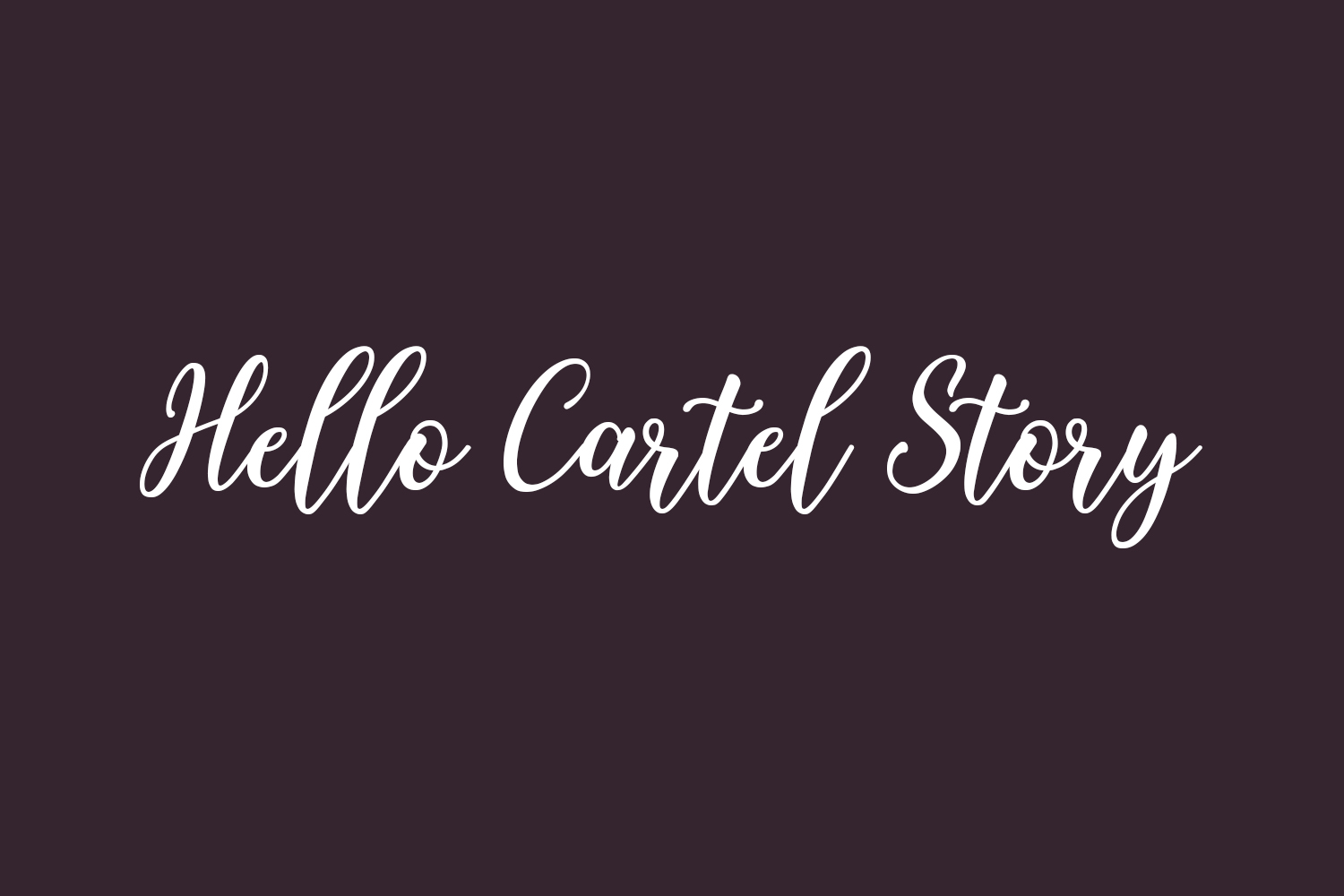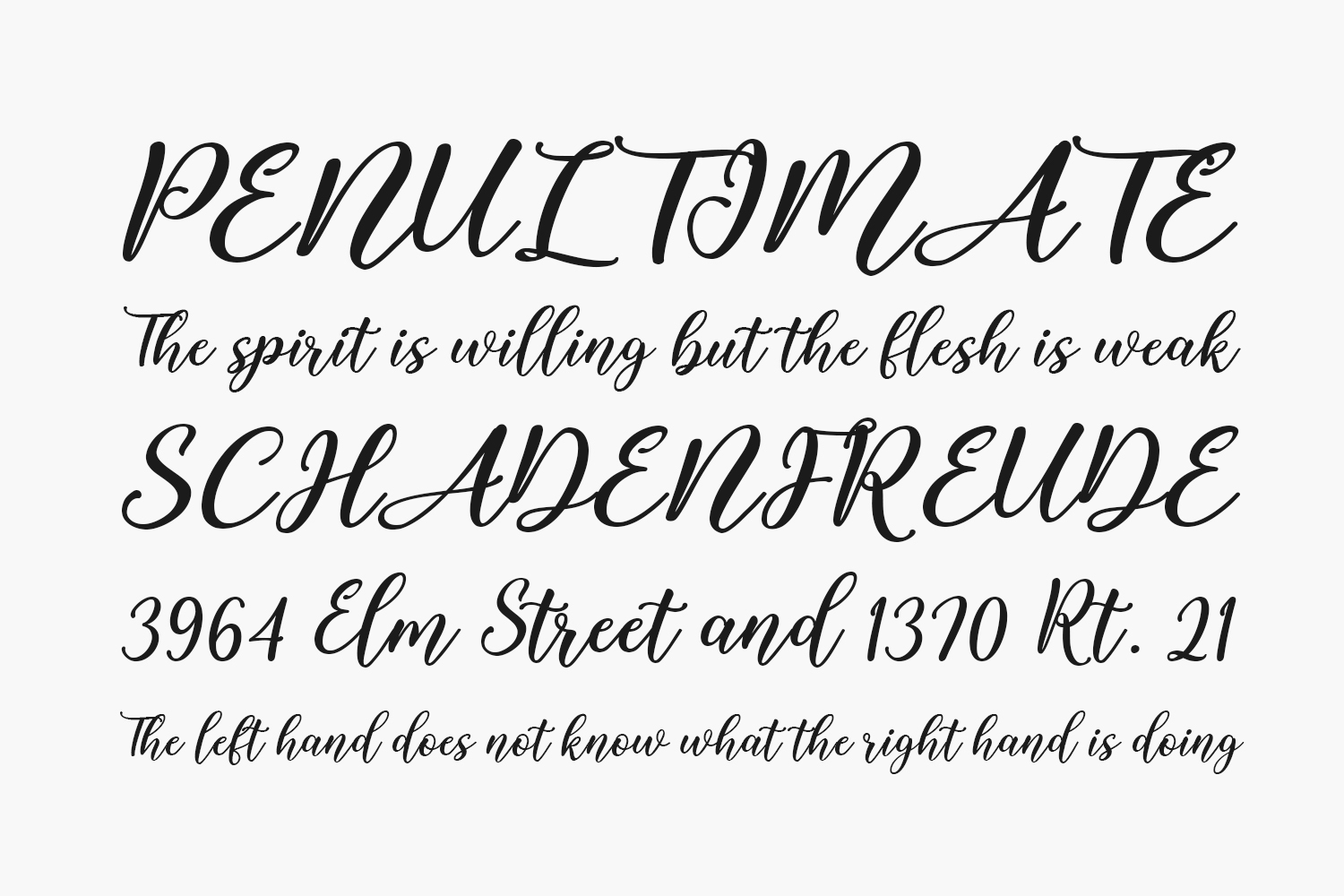
Hello Cartel Story Free Font Family exudes charming and playful energy, evoking feelings of joy and nostalgia. Its cute, rounded letters bring a sense of warmth and playfulness to any design, making it the perfect choice for projects that aim to delight and delight. The font is a true representation of a lovely, cute and playful style.
Hello Cartel Story Sans The quick brown fox jumps over the lazy dog
Hello Cartel Story Script The quick brown fox jumps over the lazy dog